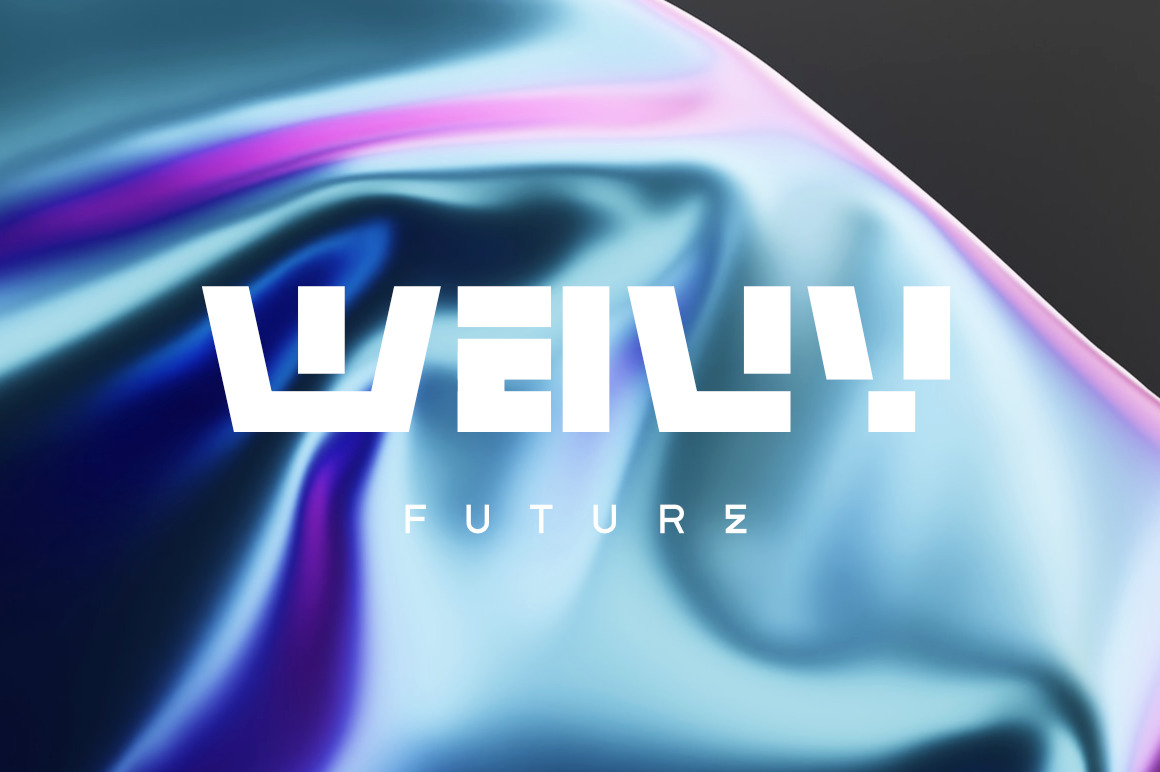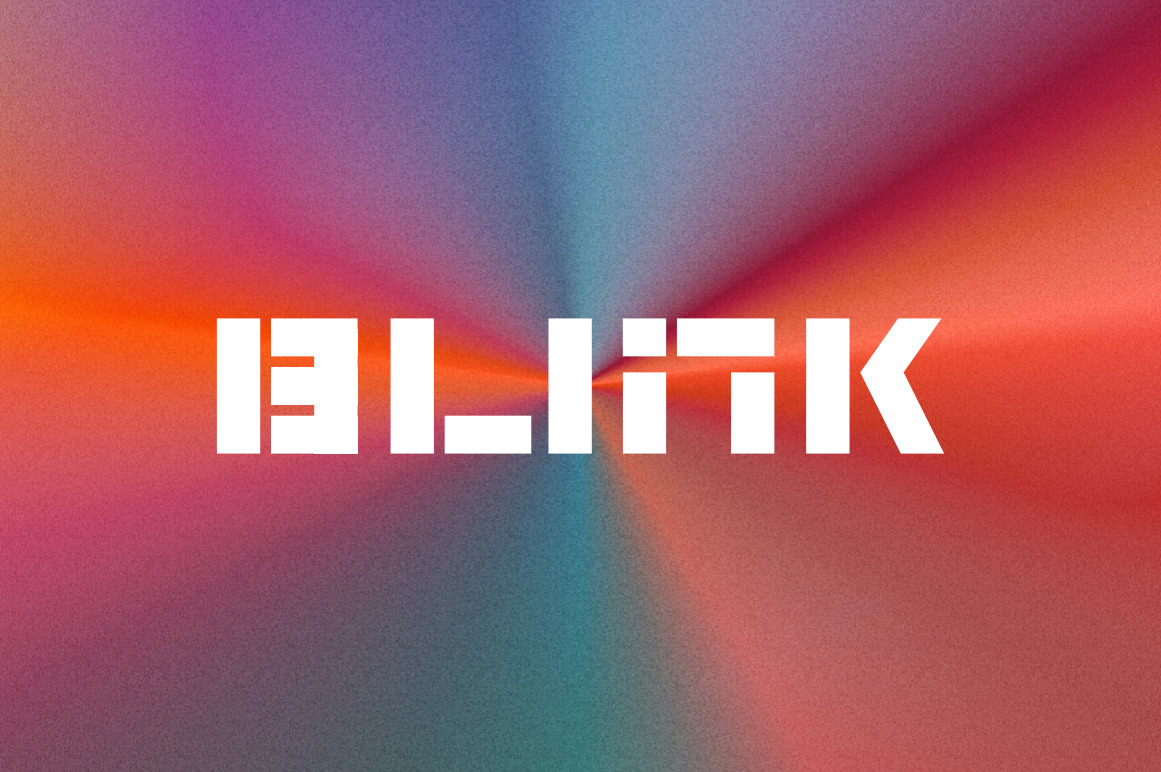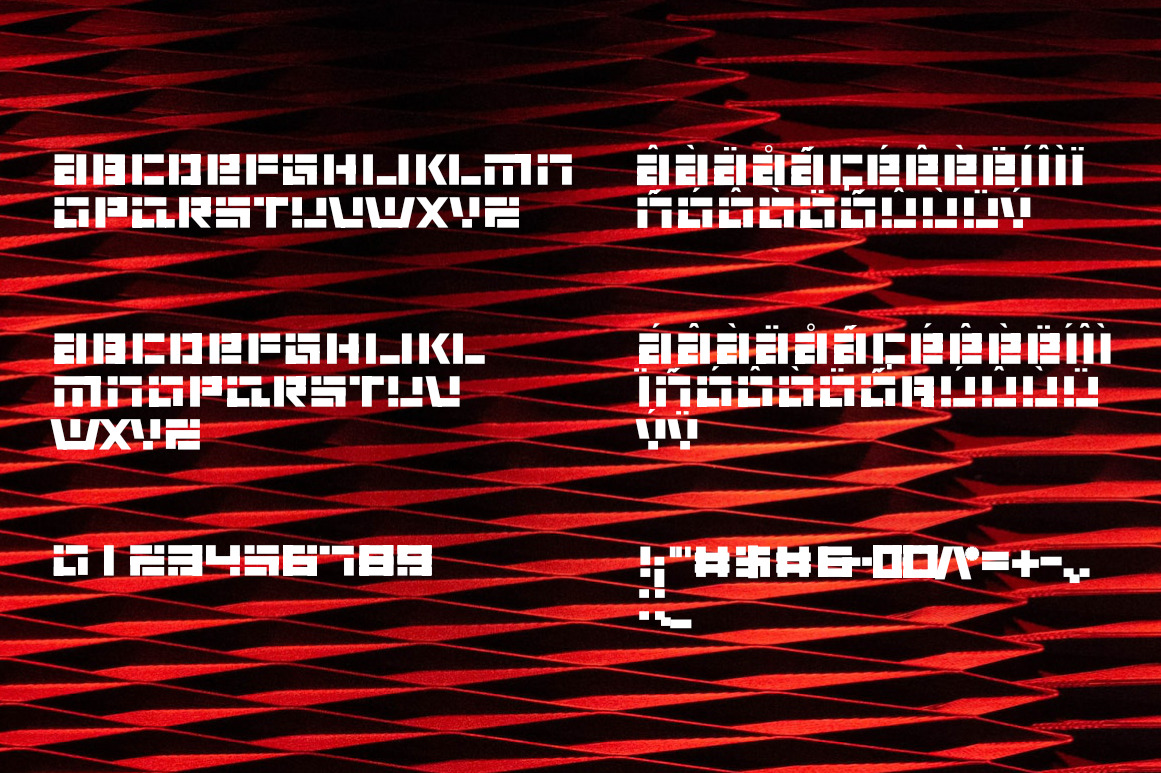
Renvem Font
a gateway to a universe of pulsating rhythms, electrifying energy, and uninhibited self-expression. It's a place where the boundaries blur between reality and euphoria, where the dance floor becomes a spaceship hurtling through the cosmos.
Type of character
Uppercase
Lowercase
Multilingual